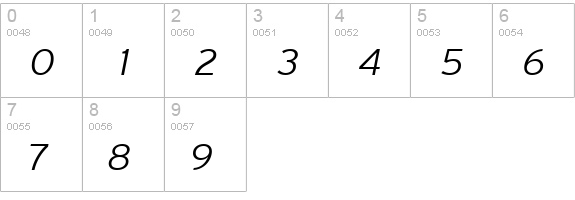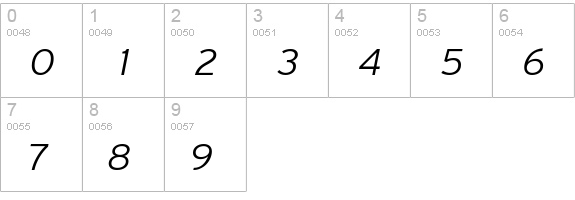
PFHighwaySansPro-LightItalic is a sleek and modern typeface that exudes elegance and sophistication. With its light and italic design, this font is perfect for adding a touch of style to any project. The clean lines and subtle curves of PFHighwaySansPro-LightItalic make it a versatile choice for a wide range of design applications, from branding and advertising to web design and print materials. The best part about PFHighwaySansPro-LightItalic is that it is completely free to download at FontsMarket.com. This means that you can elevate your designs without breaking the bank. Whether you're a professional designer looking for a new font to add to your collection or a hobbyist looking to experiment with typography, PFHighwaySansPro-LightItalic is a fantastic choice that won't cost you a dime. Download it today and see the difference it can make in your projects!